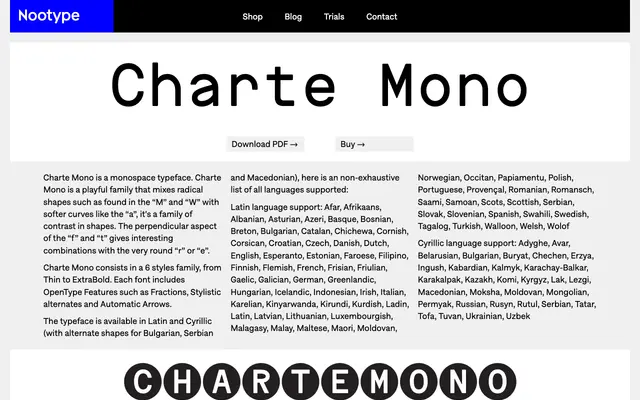
Charte Mono
A six-weight monospace family that pairs sharp geometric letterforms with softer curves, covering Latin and Cyrillic scripts with Bulgarian, Serbian and Macedonian alternates.
The design plays on contrast between angular forms such as the M and W and rounder letters like the a, r and e, while perpendicular terminals on the f and t create additional texture within running text. Six weights run from Thin to ExtraBold, each including OpenType fractions, stylistic alternates and automatic arrows. Cyrillic coverage extends to a broad range of languages with alternate shapes for Bulgarian, Serbian and Macedonian.
Explicitly described as a monospace typeface with a six-weight family; the mix of radical geometric shapes and softer curves places it in a playful monospaced sans category.